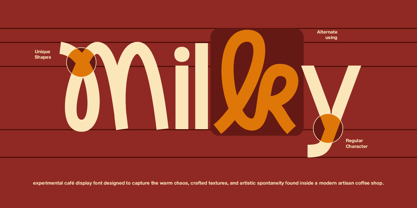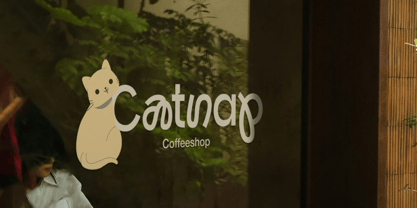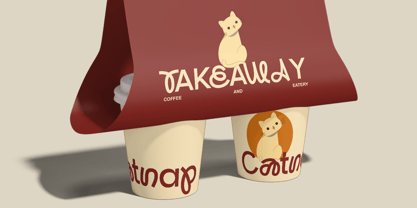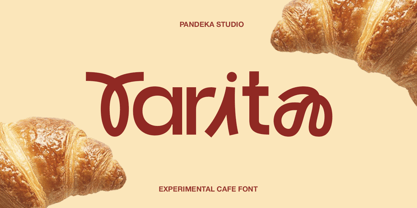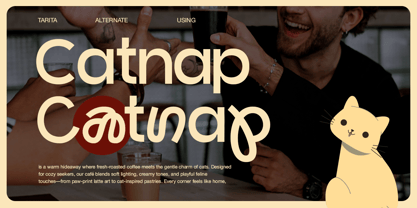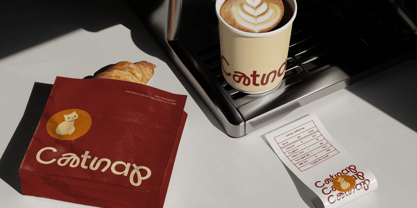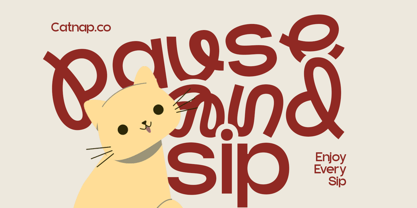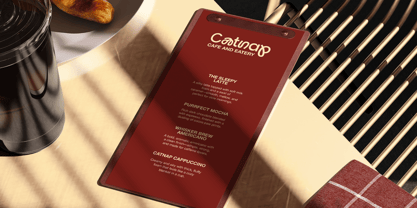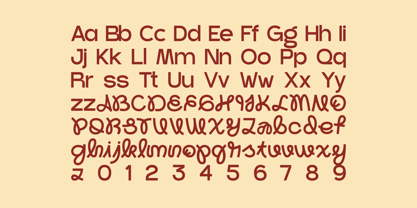
Tarita is an experimental café-style display font crafted to bring warmth, character, and a touch of handcrafted charm to your branding projects. Designed in a single Regular style, Tarita stands out with its highly expressive letterforms and 44+ alternates, allowing endless playful variations for logos, menus, packaging, storefront signage, and cozy café-themed designs.
Its organic curves, quirky strokes, and friendly rhythm create a unique visual identity that feels inviting and artisanal—perfect for bakeries, coffee shops, brunch spots, patisseries, and any brand seeking a handcrafted, experimental, and modern café aesthetic.
Tarita gives designers the freedom to mix and match alternates to create custom logotypes with distinctive personality. From bold menu titles to creative branding systems, this font adds charm and experimentation to every detail.
• 44+ Stylistic Alternates